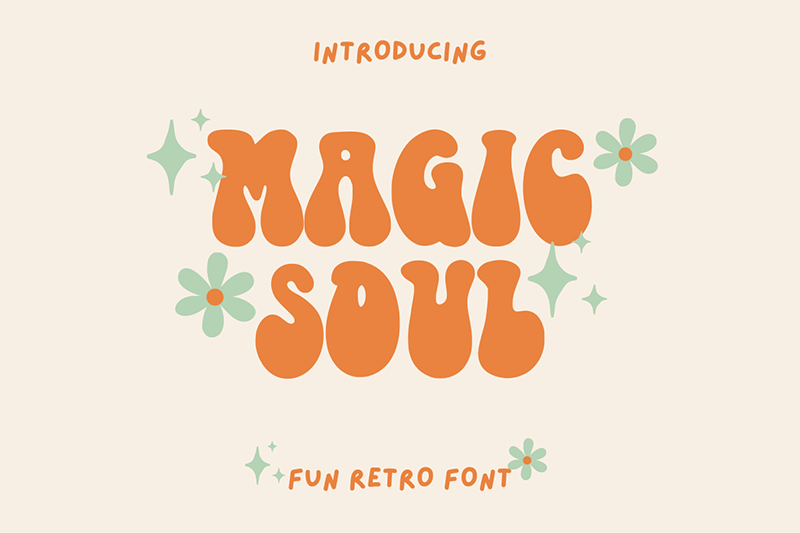
Preview and download Magic Soul Font. Created by Tri Sakti Oktaviano in Fancy Groovy styles with Demo license.
Magic Soul is a fun and retro font, it's perfect for designs that need a playful, cheery accent.Magic Soulis suitable for book covers, posters, packaging, merchandise, logotypes, and many more! What's Included: -Magic Soul (OTF) -Magic Soul (TTF) -Magic Soul (WOFF) -standard glyph -Works on PC & Mac -Accessible in Adobe Illustrator, Adobe InDesign, it even works in Microsoft Word. PUA Encoded Characters � Fully accessible with no add-ons. |